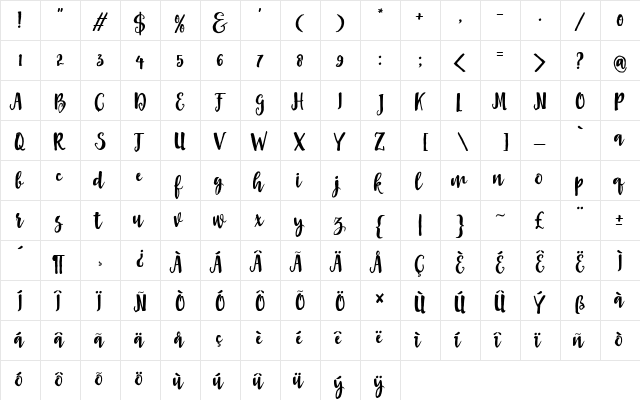
Asly Brush Regular
Design Context for Asly Brush Typeface
Asly Brush flows with the natural rhythm of handwritten lettering, making it ideal for designs that call for warmth and personal expression.
Font Pairing: Combine Asly Brush with a simple geometric sans for maximum contrast — the tension between flowing curves and clean structure is a classic typographic pairing.
Pro Tip: Pair Asly Brush with a clean sans-serif for supporting text. The contrast between fluid script and geometric structure creates an elegant typographic hierarchy.